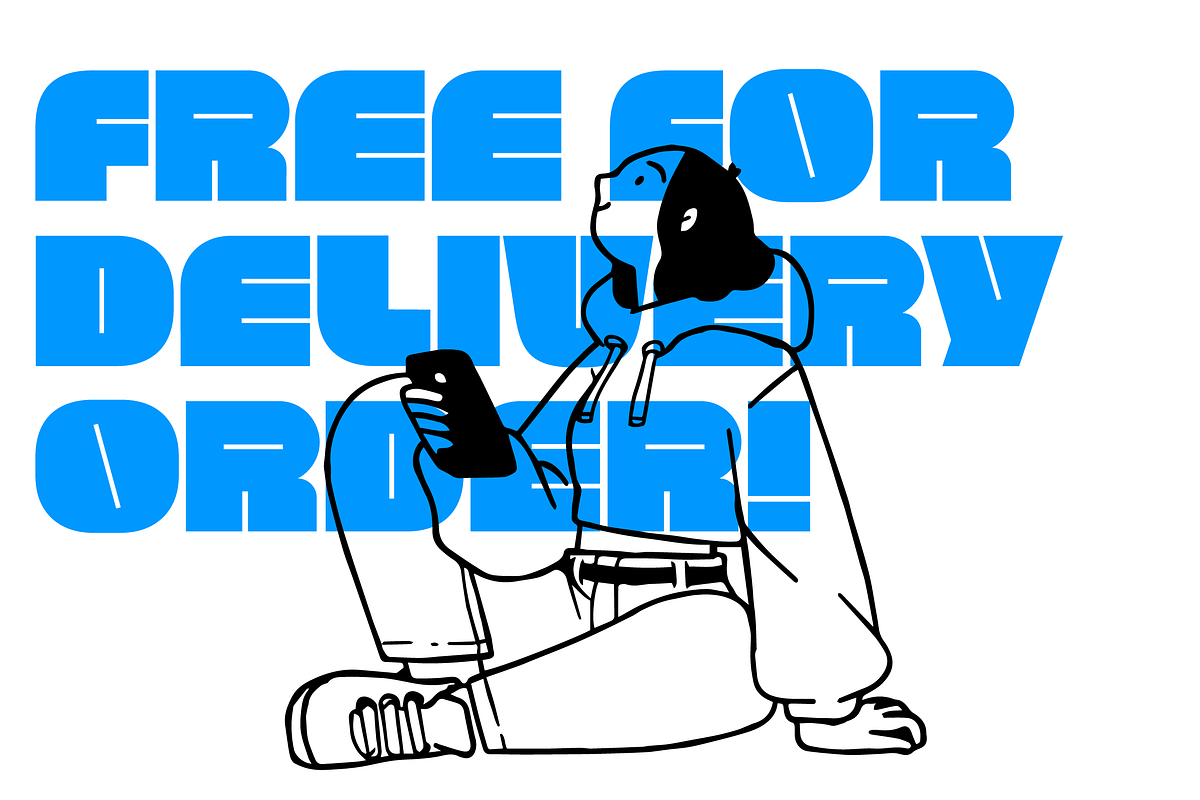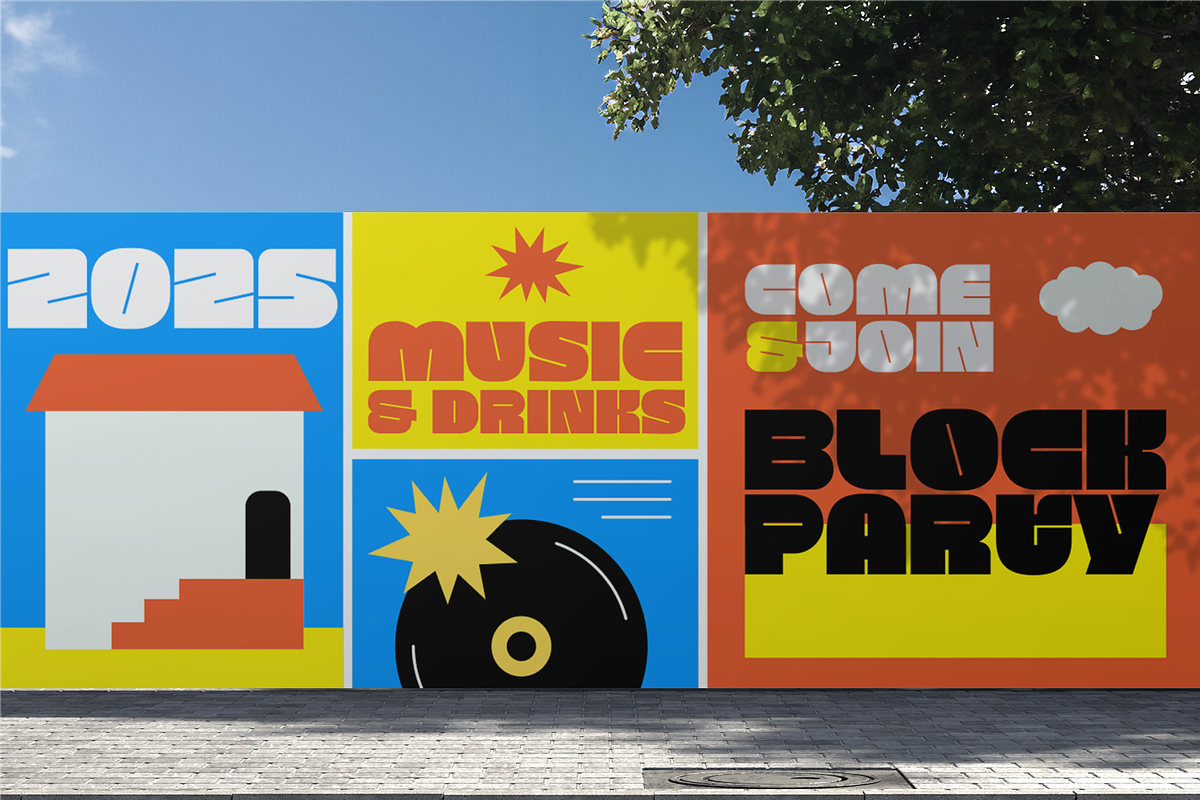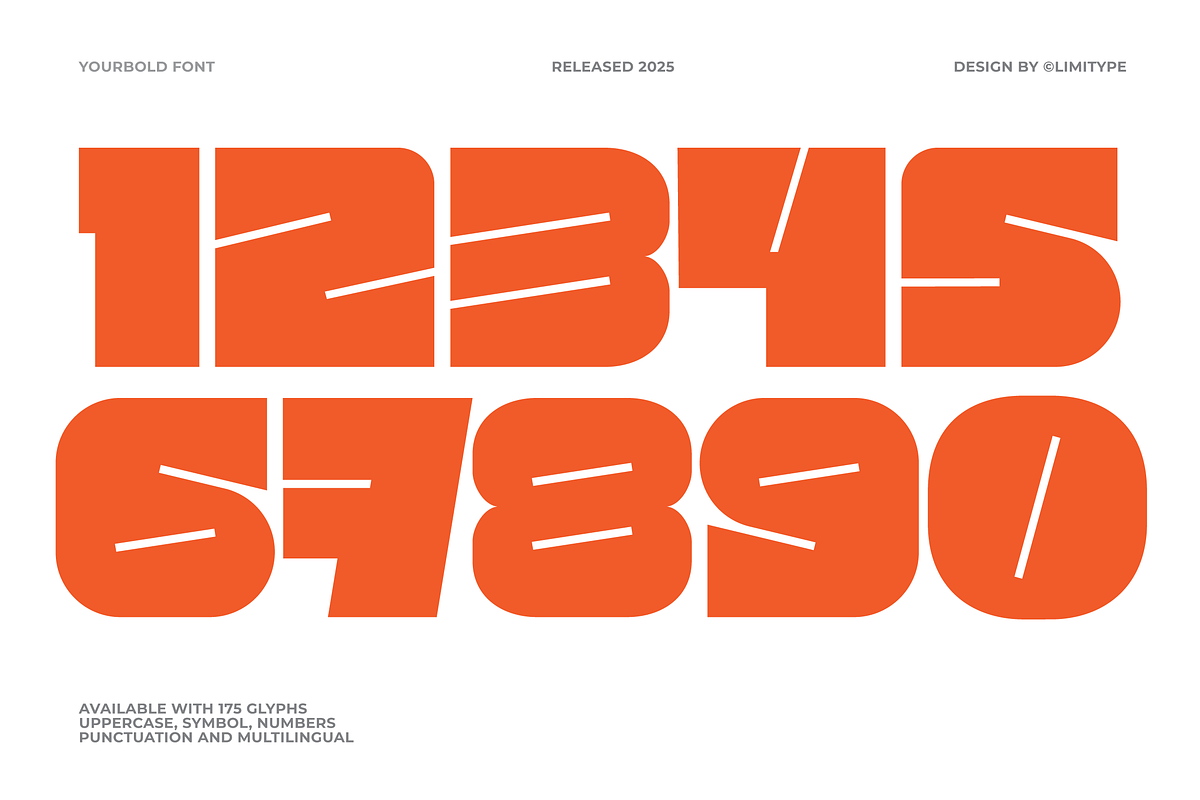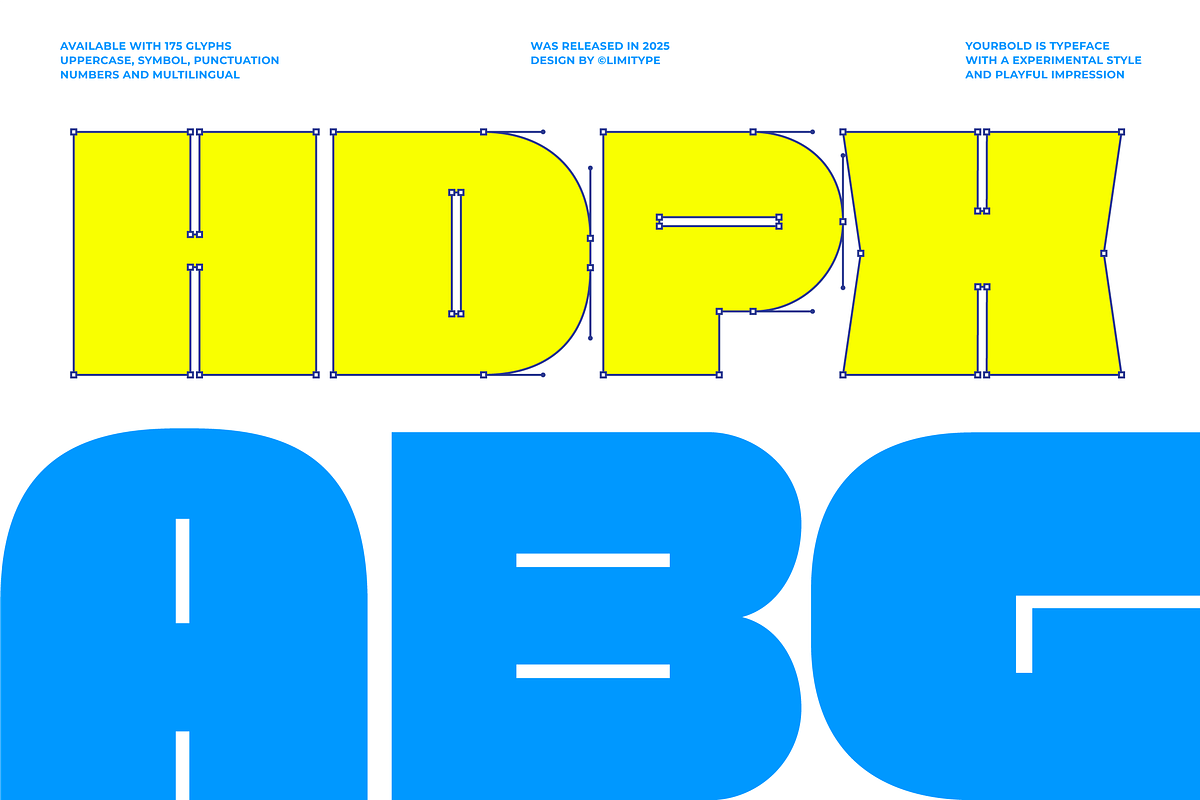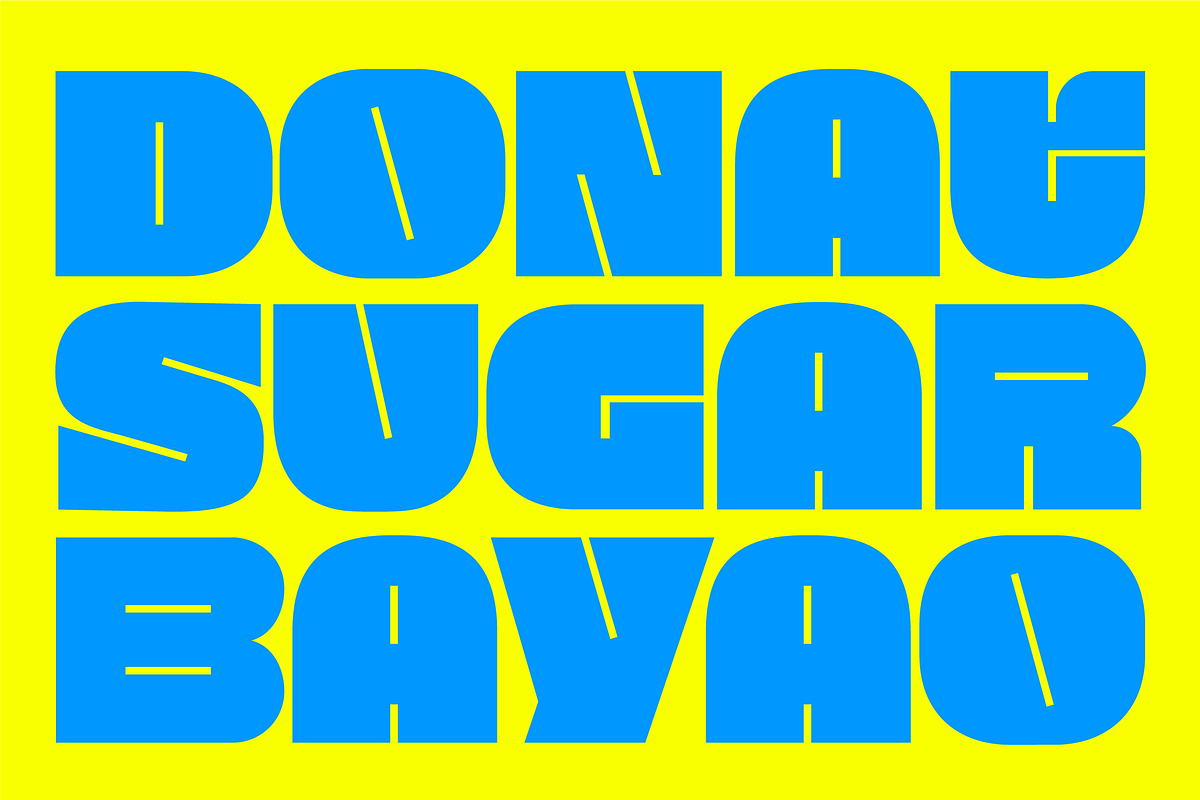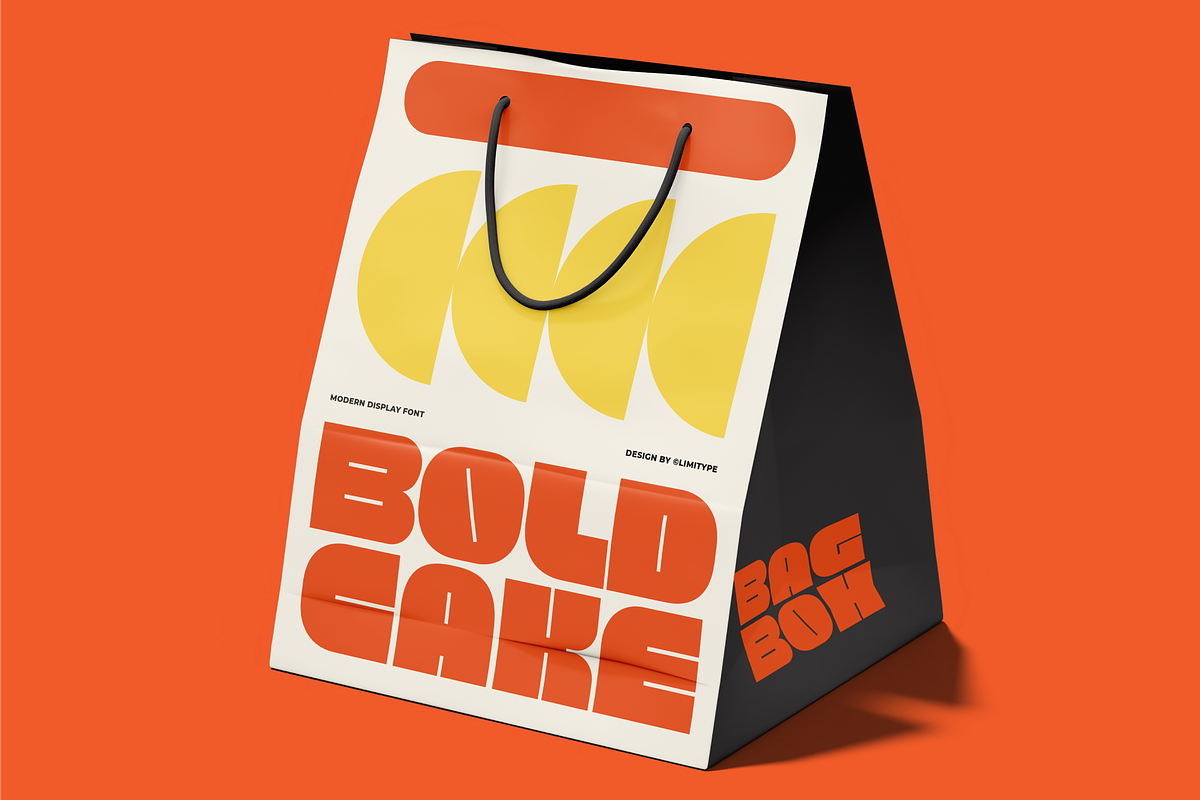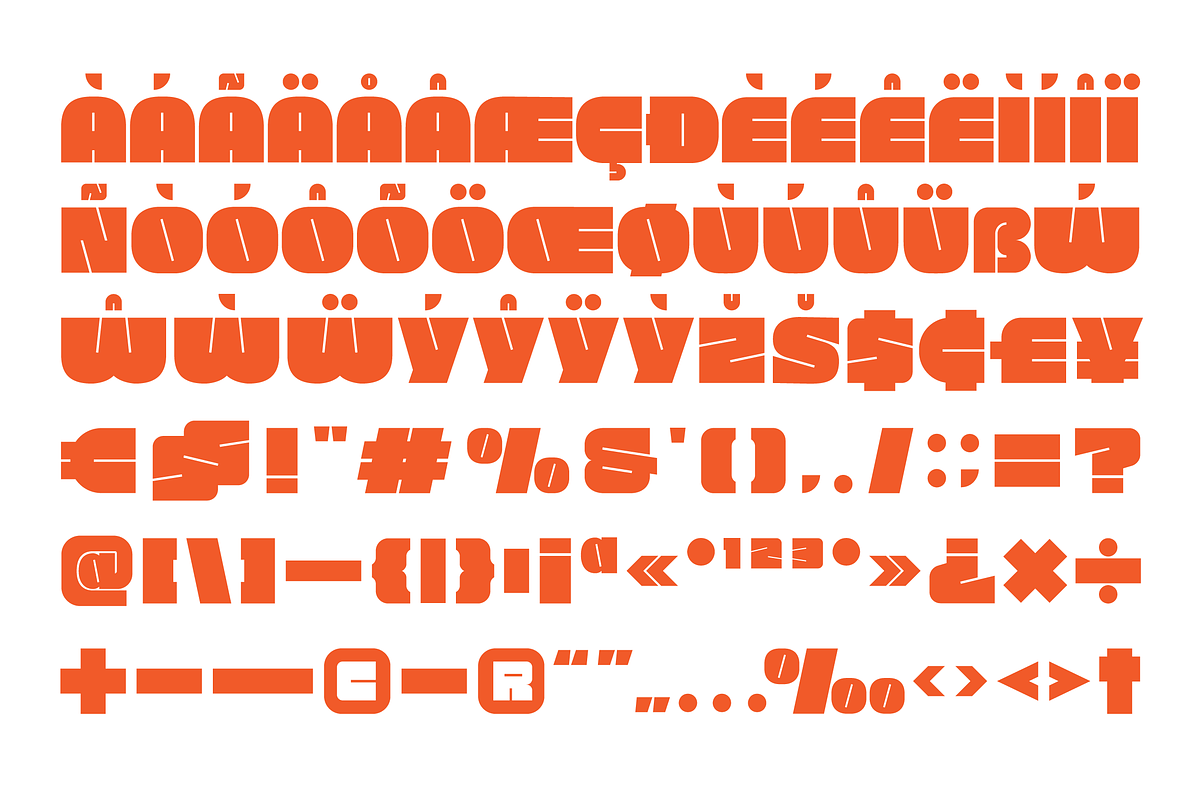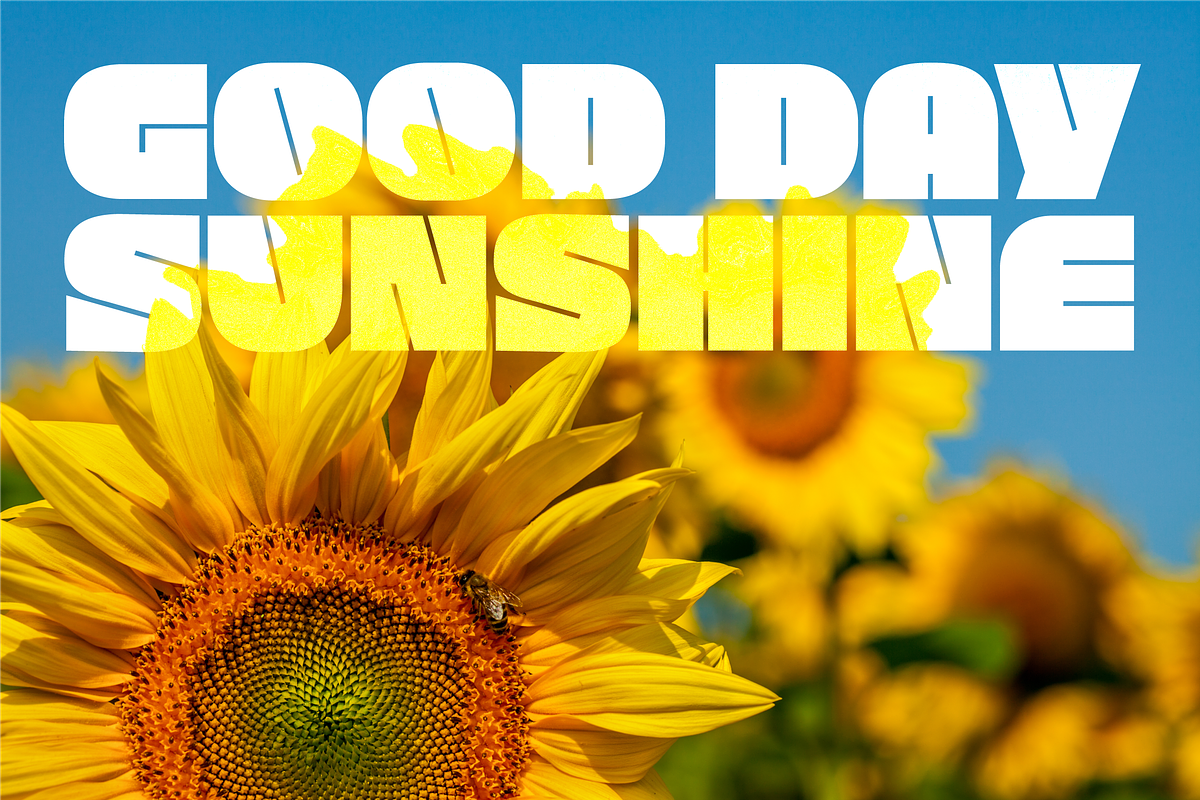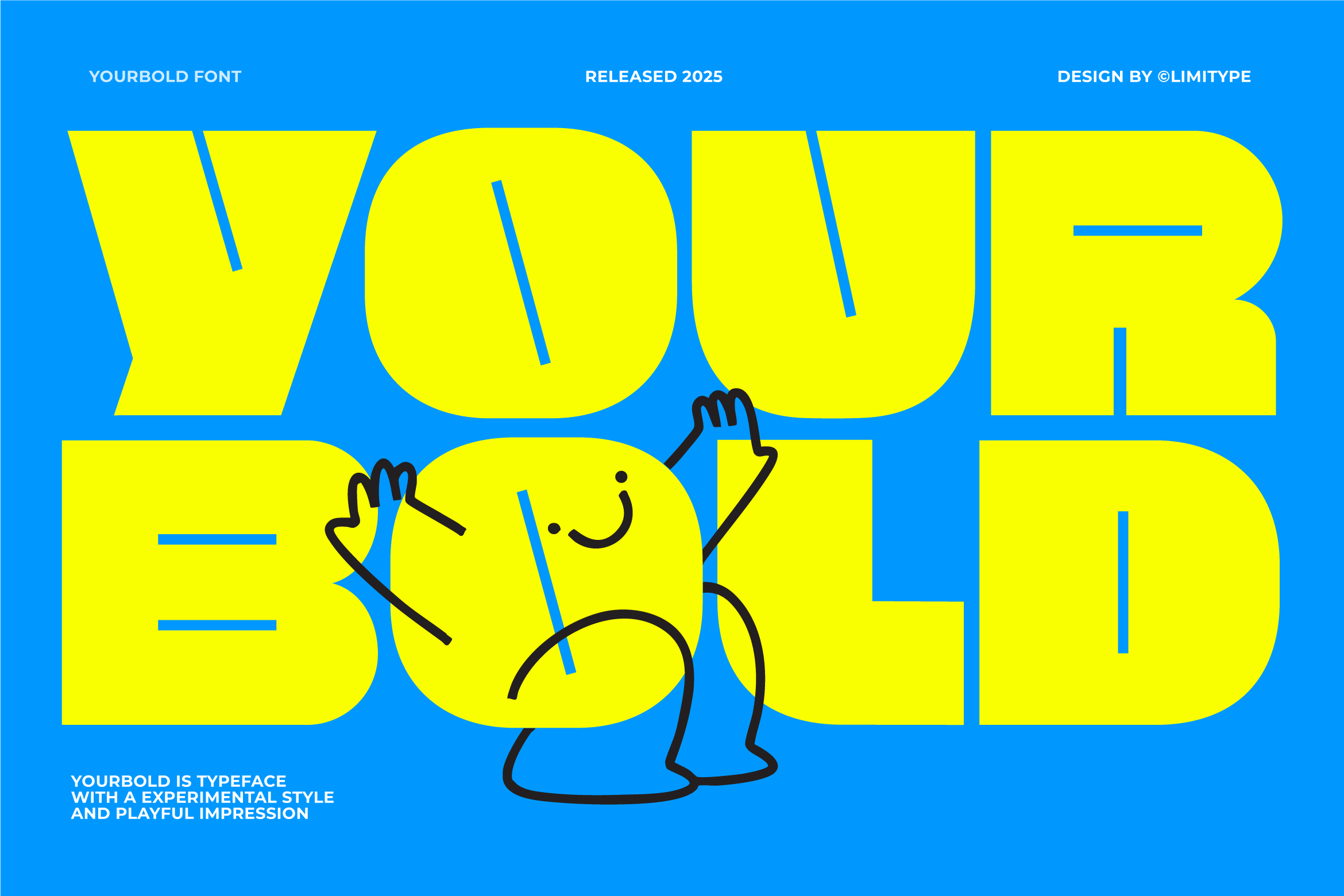
Yourbold - Bold Font
Yourbold Display is designed to be bold, playful, strong, and full of character. Perfect for headlines, posters, logos, and any design that needs to make a strong first impression. Each letter carries a solid and confident visual energy. If your design needs to stand out and grab attention, this font is the right choice.
Yourbold Availbale with:
- Allcaps Font
- Symbol